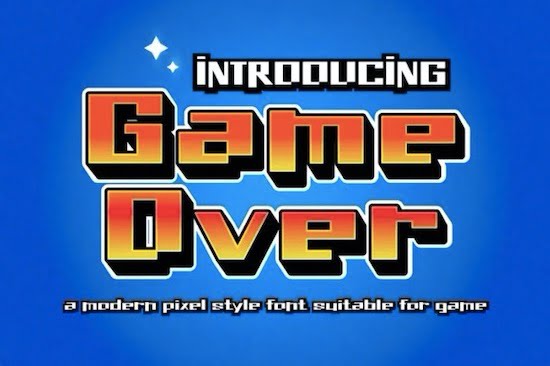
Game Over Font
Game Over is an absolutely modern display font designed for contemporary projects. This typeface contains a classy alternate set that allows you to change in many different designs. This versatile font will take your ideas into the truth.
Game Over Display Font
Font Categories: Display, Bitmap, Pixel